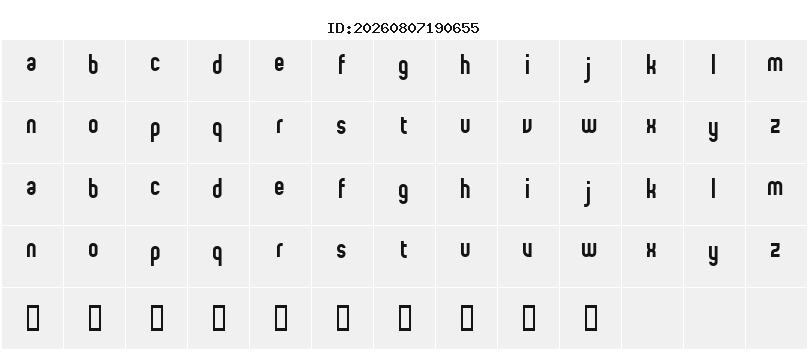
proletarian (beta) Preview
• Font Name: proletarian (beta)
• Font ID: Macromedia Fontographer 4.1 proletarian (beta)
• Full Font Name: proletarian (beta)
• Version: Macromedia Fontographer 4.1 97/06/13
• PostScript Name: Proletarianbeta
• Character Count: 58
About proletarian (beta).ttf
proletarian (beta).ttf is a modern, elegant sans-serif font designed for ultimate readability and visual harmony. Perfect for branding, headlines, web design, and print materials.